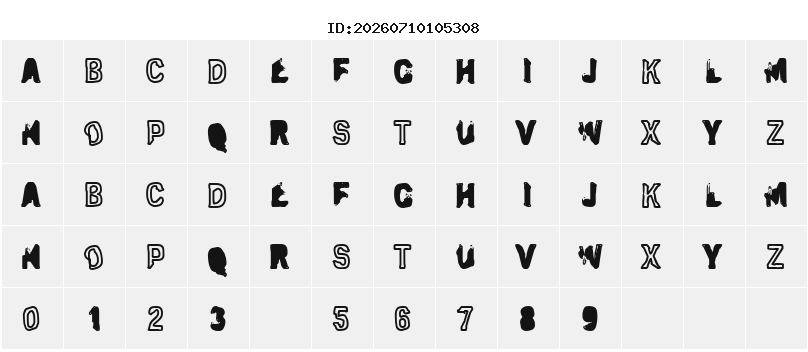
Eclipsed Moon Preview
• Font Name: Eclipsed Moon
• Font Style: Outline
• Font ID: Macromedia Fontographer 4.1.5 Eclipsed Moon Outline
• Full Font Name: Eclipsed Moon Outline
• Version: Macromedia Fontographer 4.1.5 1999-10-17
• PostScript Name: EclipsedMoonOutline
About Eclipsed Moon.ttf
Eclipsed Moon.ttf is a modern, elegant sans-serif font designed for ultimate readability and visual harmony. Perfect for branding, headlines, web design, and print materials.